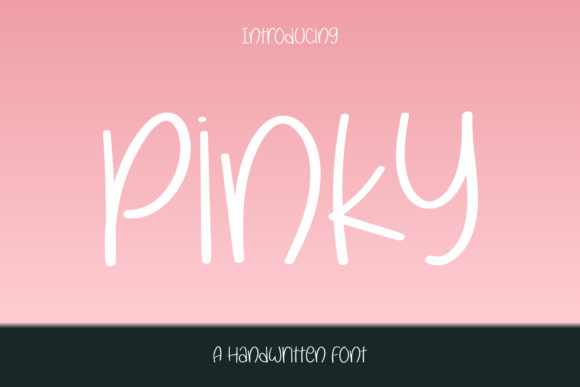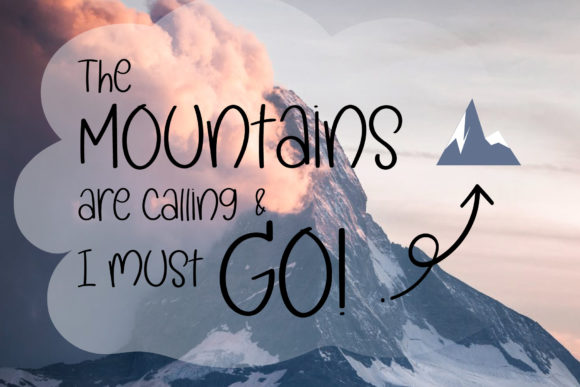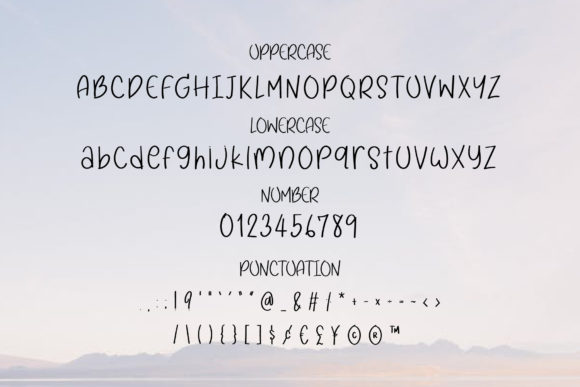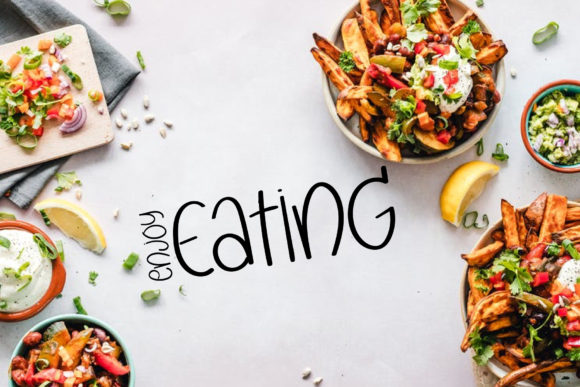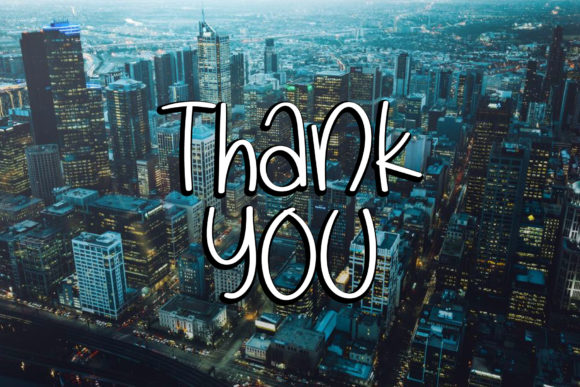
Pinky
About Pinky Font
Pinky is a whimsical handwritten font. It features a cute and friendly style that will elevate a wide range of design projects to the highest level, be it branding, headings, wedding designs, invitations, signatures, logos, labels, and much more!